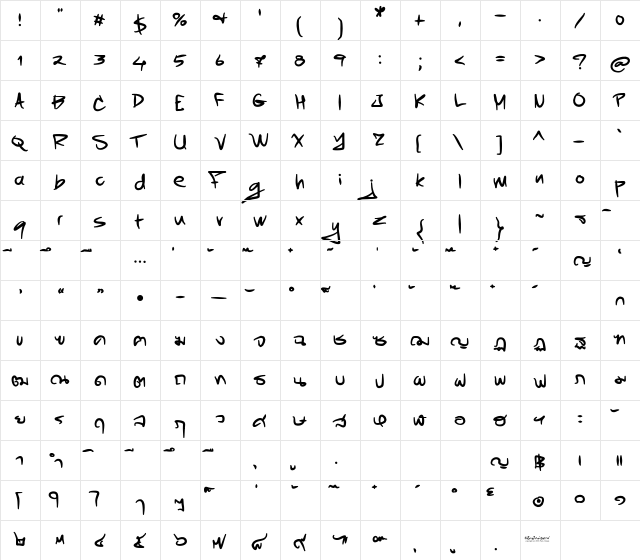
TX Timesquare Regular
| Foundry | Puey Ounjai |
| Designer | Puey Ounjai |
Design Context for TX Timesquare Typeface
TX Timesquare is a composed and adaptable typeface that performs quietly and consistently across a wide range of design contexts.